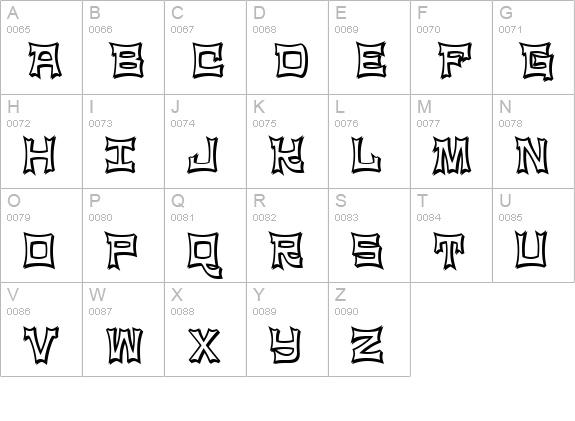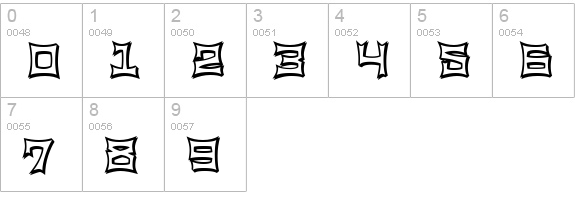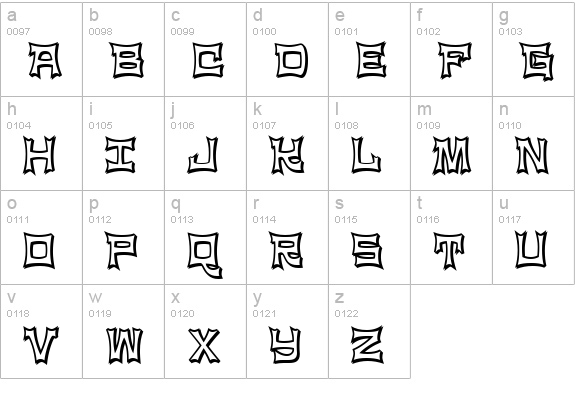
NinjaLine Font Details
Introducing NinjaLine font - a sleek and modern typeface perfect for adding a touch of ninja-like sophistication to your designs. This font exudes a sense of stealth and precision with its sharp lines and geometric shapes. Whether you're designing a logo, poster, or website, NinjaLine font will bring a unique edge to your project. The best part? NinjaLine font is completely free to download at FontsMarket.com, making it easily accessible for all your creative endeavors. Embrace the power of the ninja with NinjaLine font and take your designs to the next level.